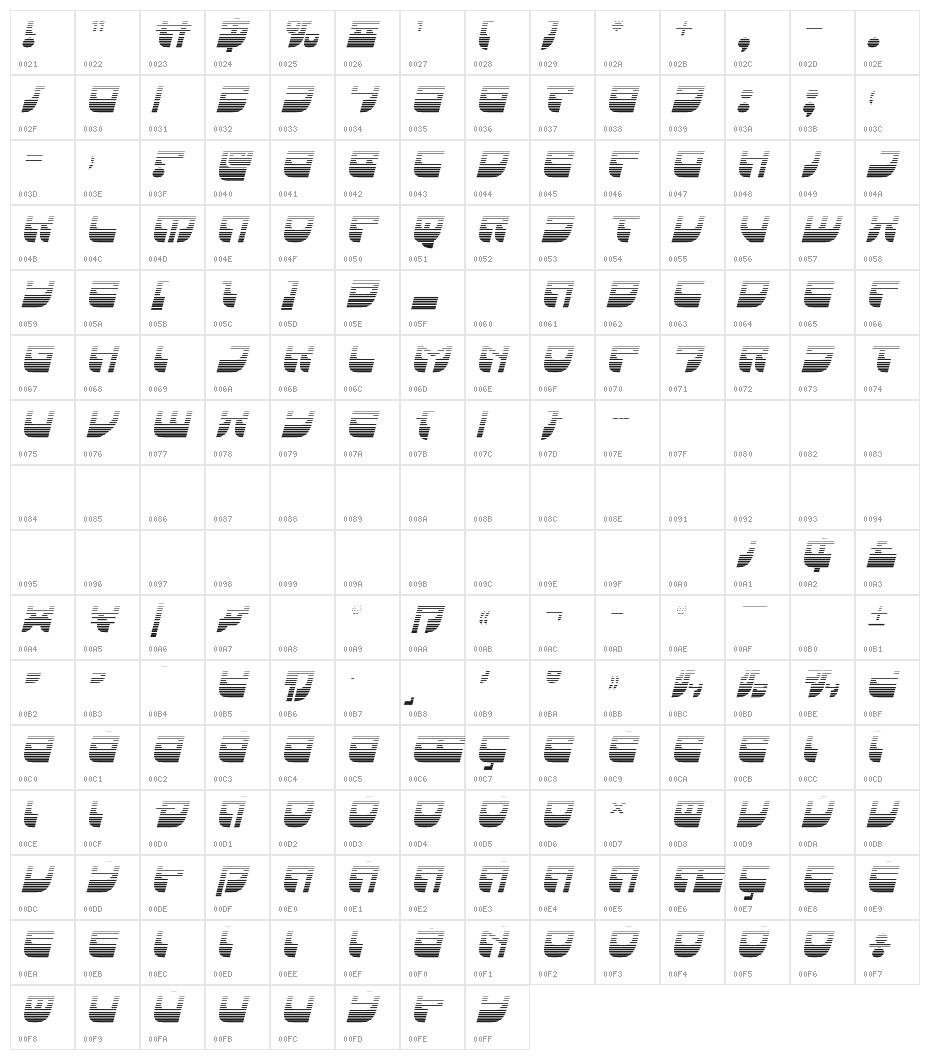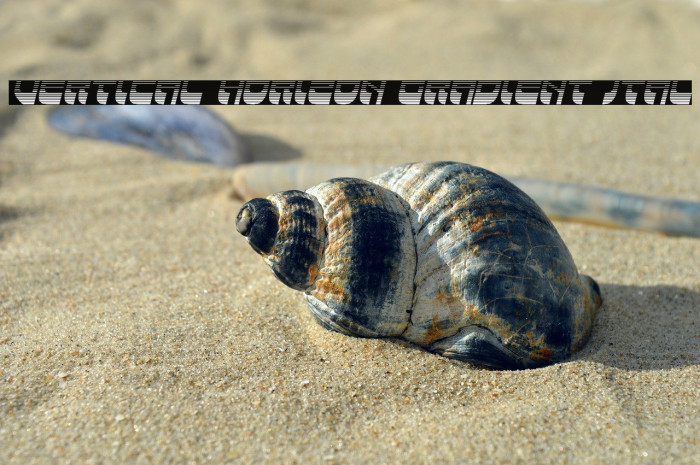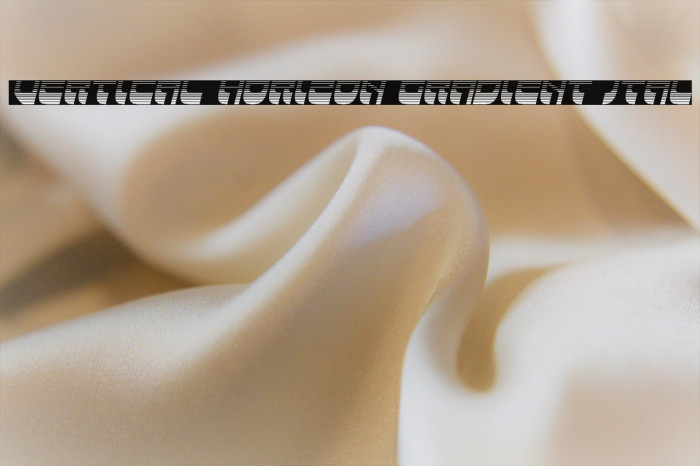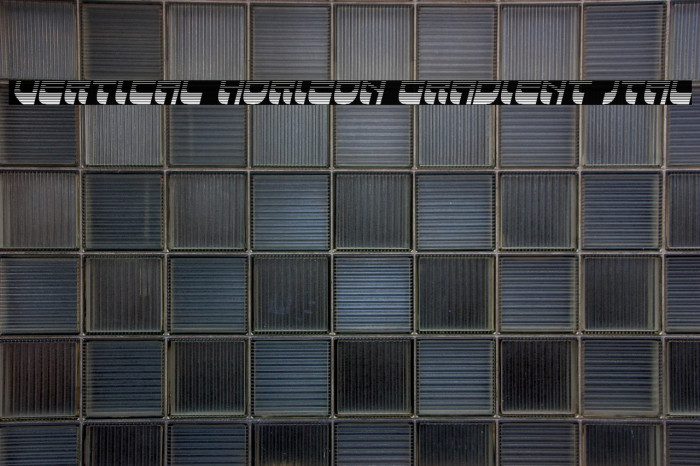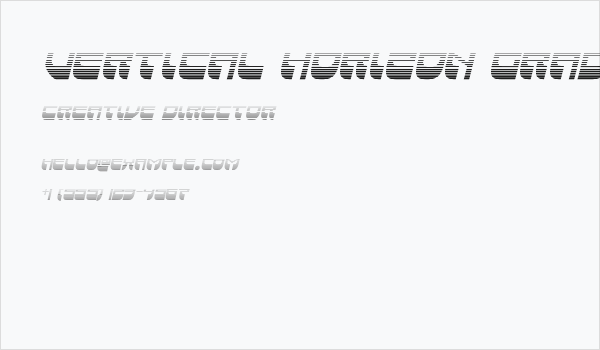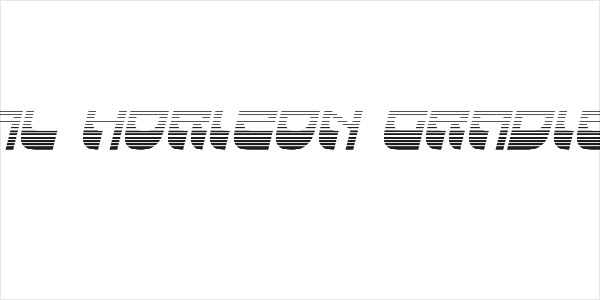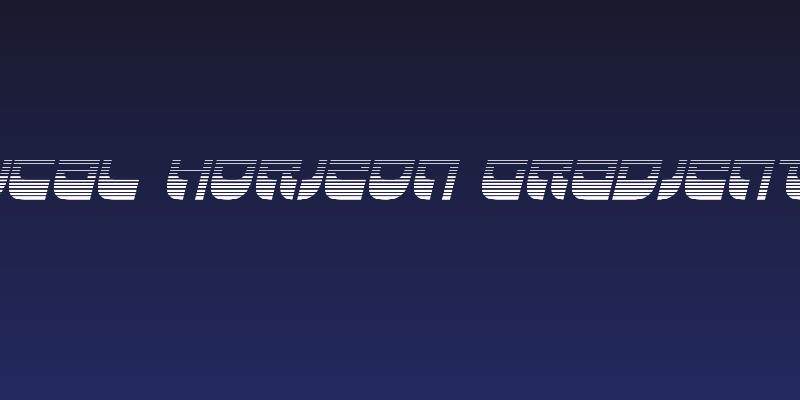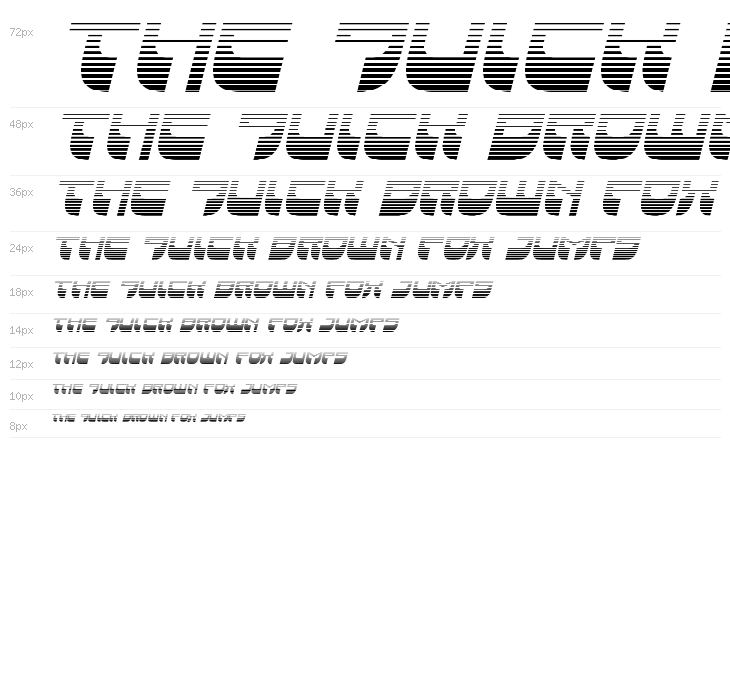
Vertical Horizon Gradient Ital Font
Vertical Horizon Gradient Ital Description
This font features a unique horizontal gradient effect, where each character is composed of multiple parallel lines creating a sense of motion and depth. The design is futuristic and dynamic, with a bold presence that captures attention. The characters are slightly italicized, enhancing the sense of speed and fluidity. The spacing between the lines within each character adds a layered texture, making it visually intriguing. This font is ideal for projects that require a modern and edgy aesthetic, such as technology branding, sci-fi themed designs, or innovative product advertisements.
| Proposed Projects | Ideal for technology branding, sci-fi themed designs, innovative product advertisements, and modern digital art. |